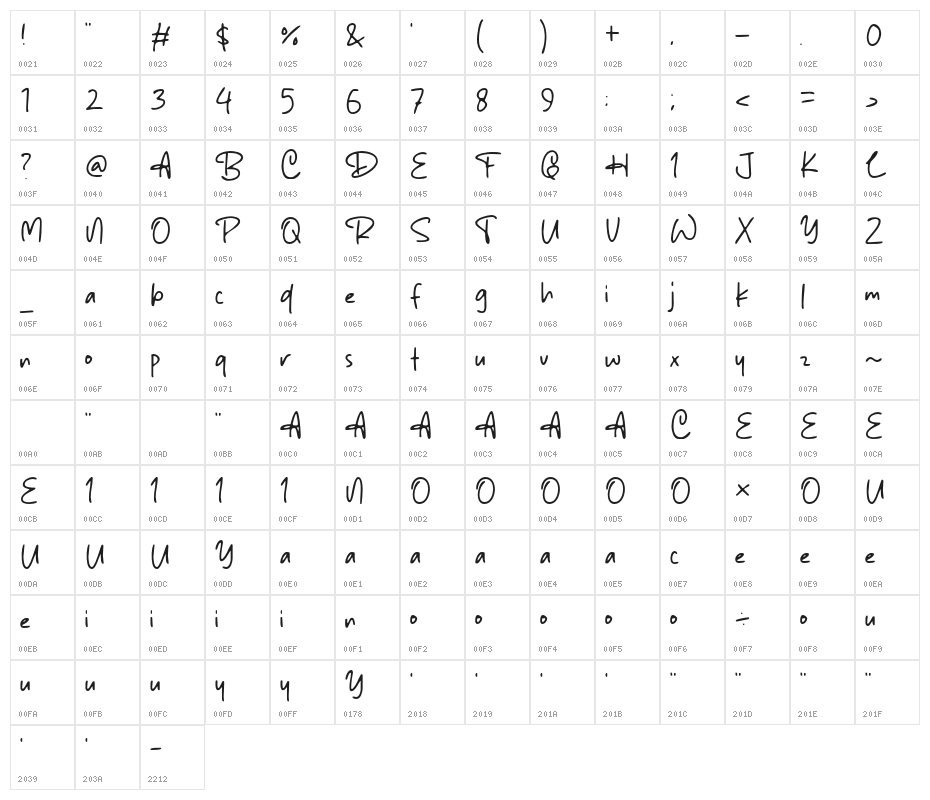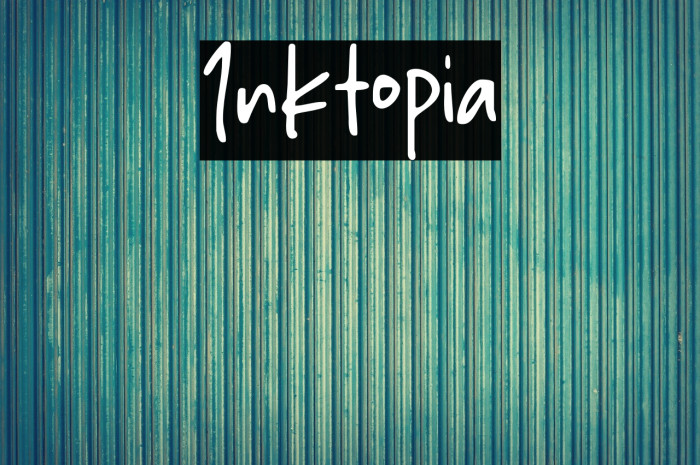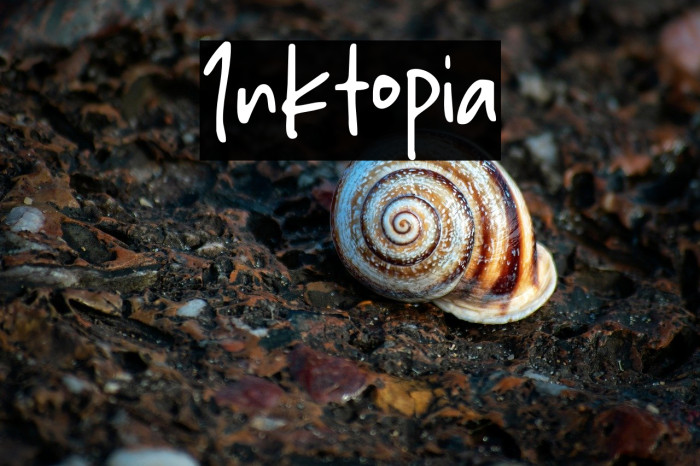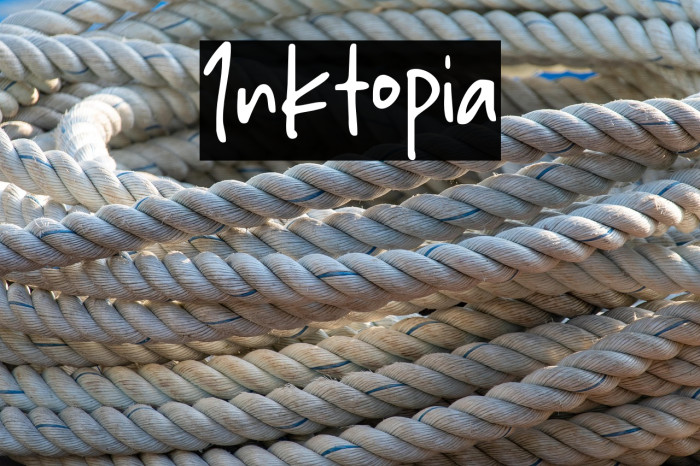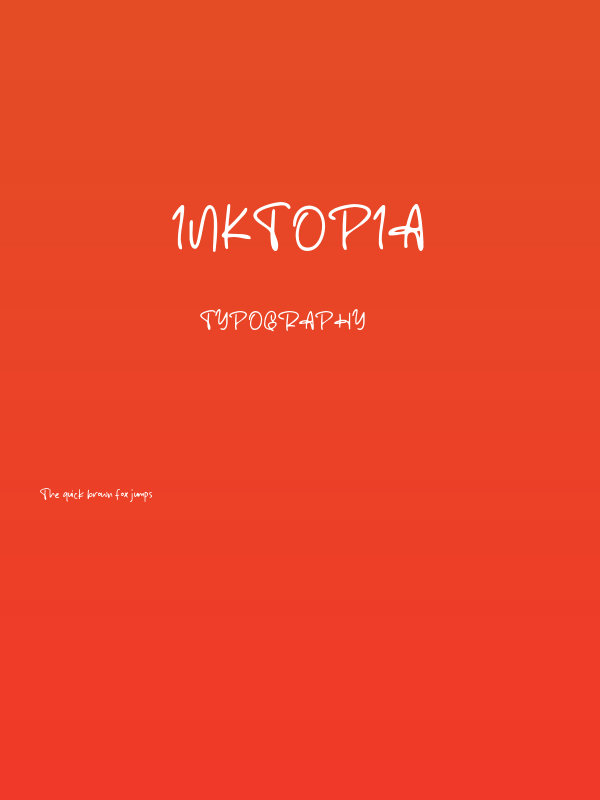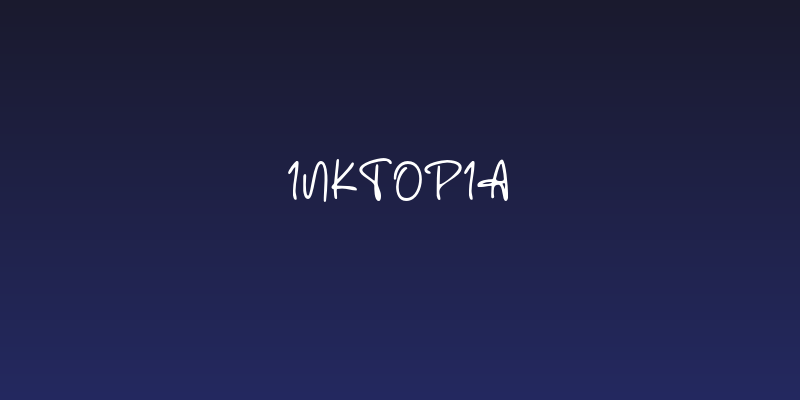
Inktopia Font
Inktopia Description
This font features a playful and casual handwritten style, characterized by its smooth, flowing lines and slightly irregular shapes. The letters have a natural, organic feel, with varying stroke widths that add a touch of dynamism and personality. The uppercase and lowercase letters maintain a consistent style, while the numbers and special characters complement the overall aesthetic. This font is well-suited for projects that require a personal, informal touch, such as greeting cards, invitations, or creative branding.
| Overall Style | Casual, Playful |
| Use Case | Headlines, Logos, Informal text |
| Proposed Projects | Greeting cards, invitations, creative branding, personal notes. |